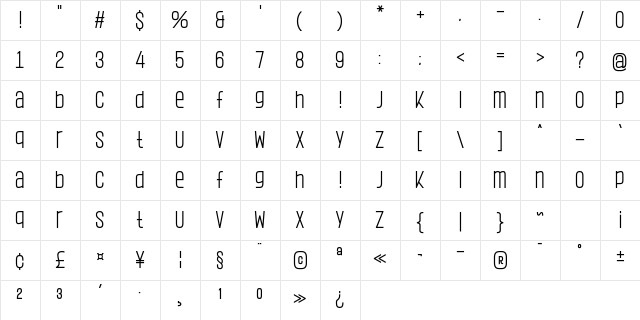
Ragnear Display Light
Foundry: Shanaya Creative Studio
Designer: Wahyu Sa
Ragnear Display Family
Design Context for Ragnear Display
Ragnear Display is built around its visual character rather than neutral utility - its distinctive forms are designed to make an impression at display sizes. Its slender proportions lend an understated elegance to any composition.
Font Pairing: Pair with a clean neutral sans-serif for body copy to let Ragnear Display's character lead without overwhelming the composition.
Pro Tip: Use Ragnear Display exclusively at display sizes - it was designed to be seen, not read at length. Let a neutral companion handle body copy.